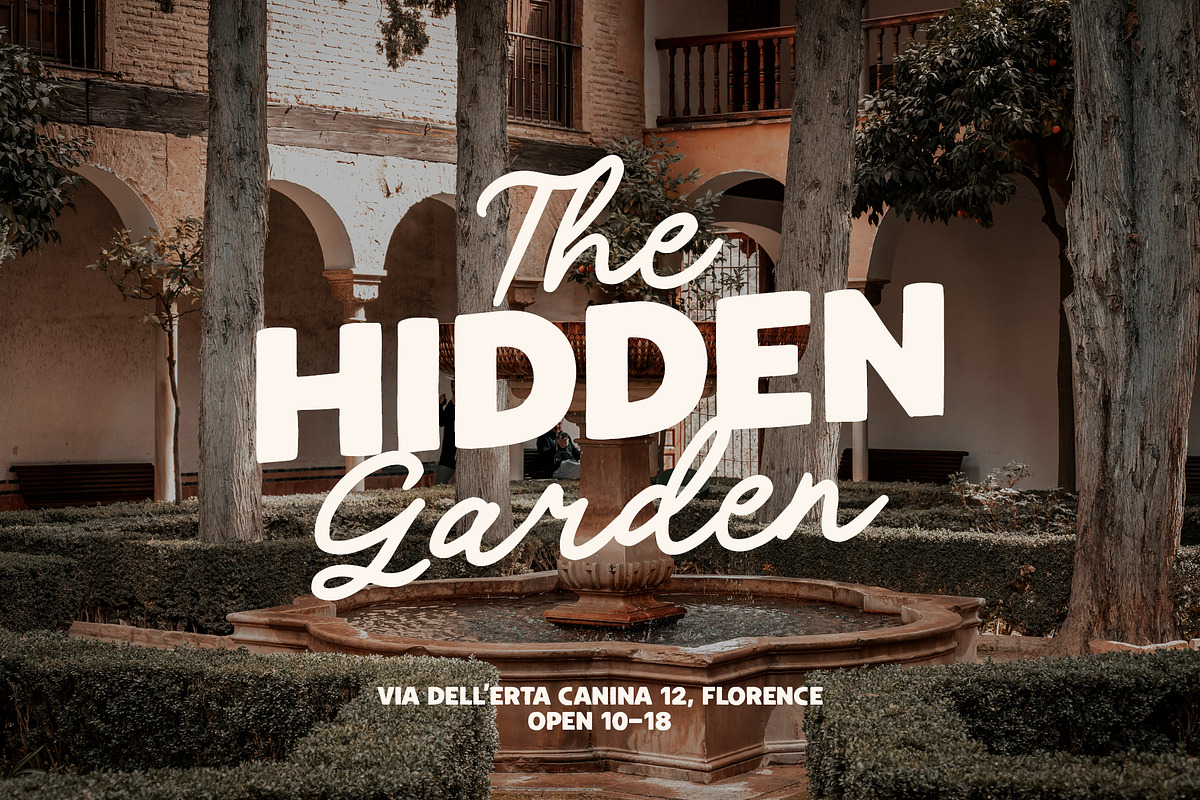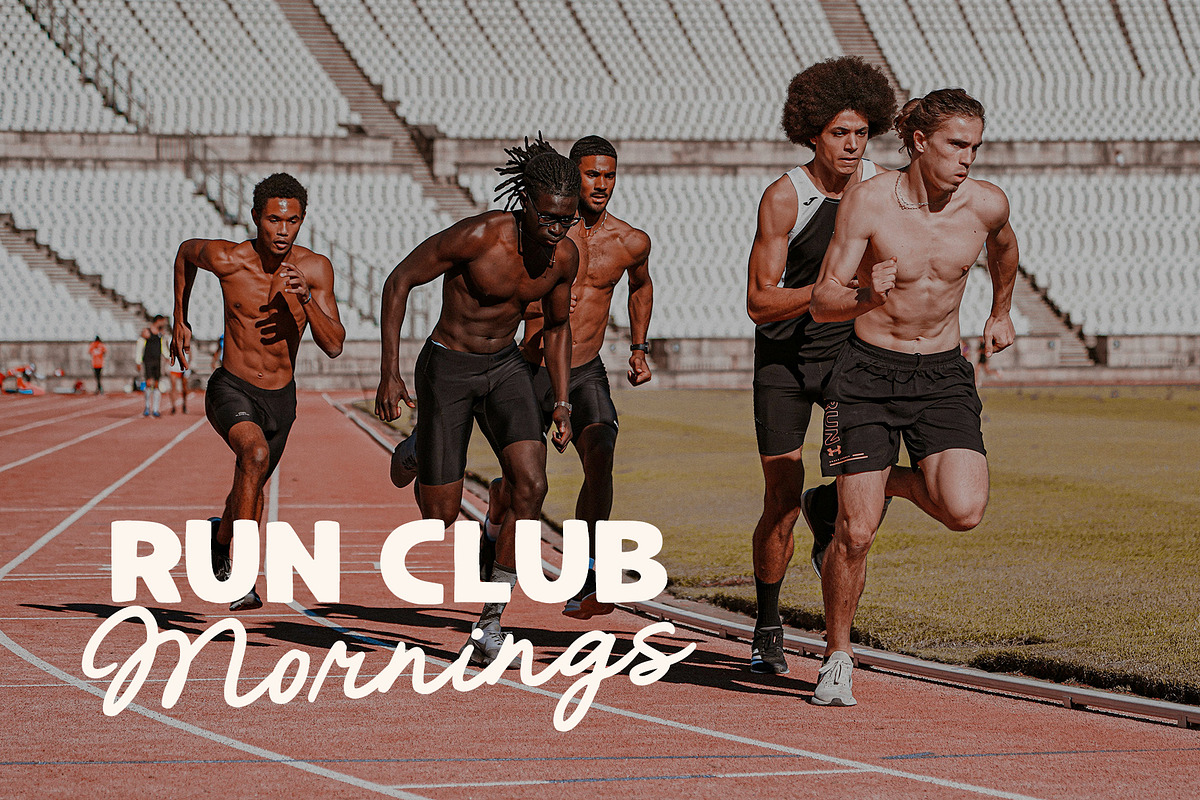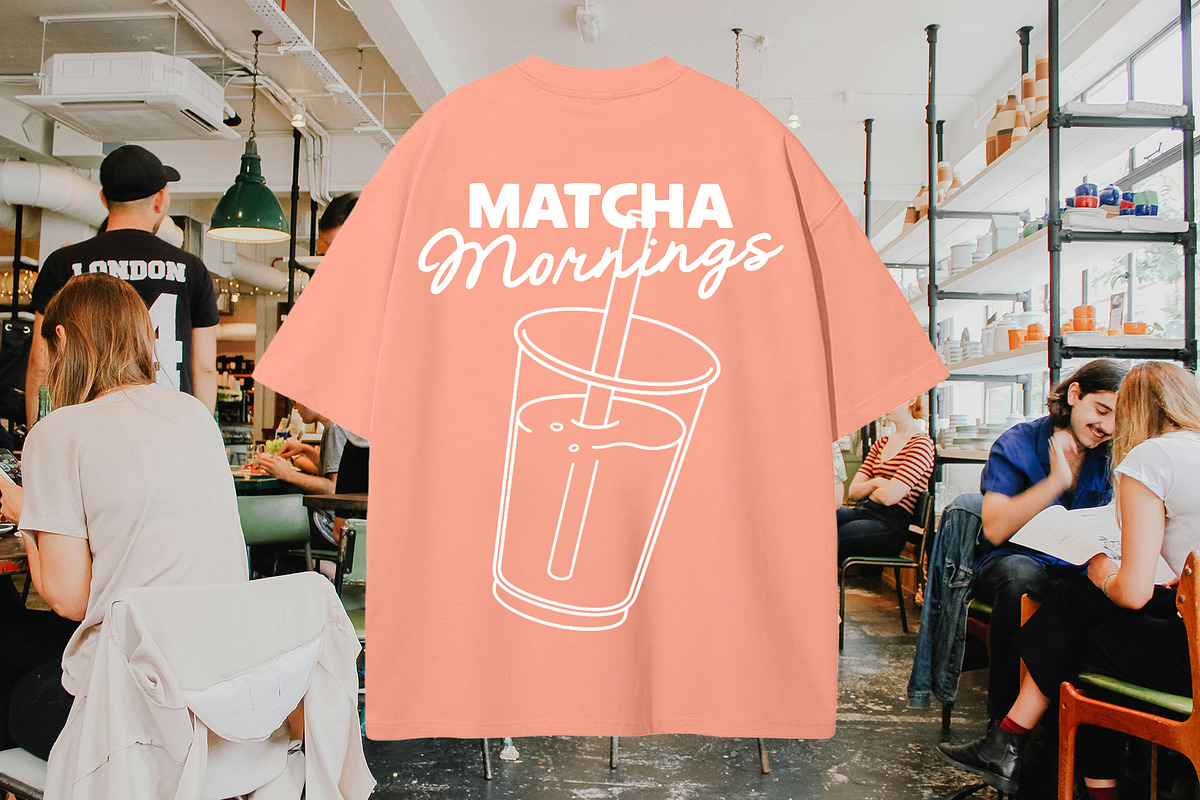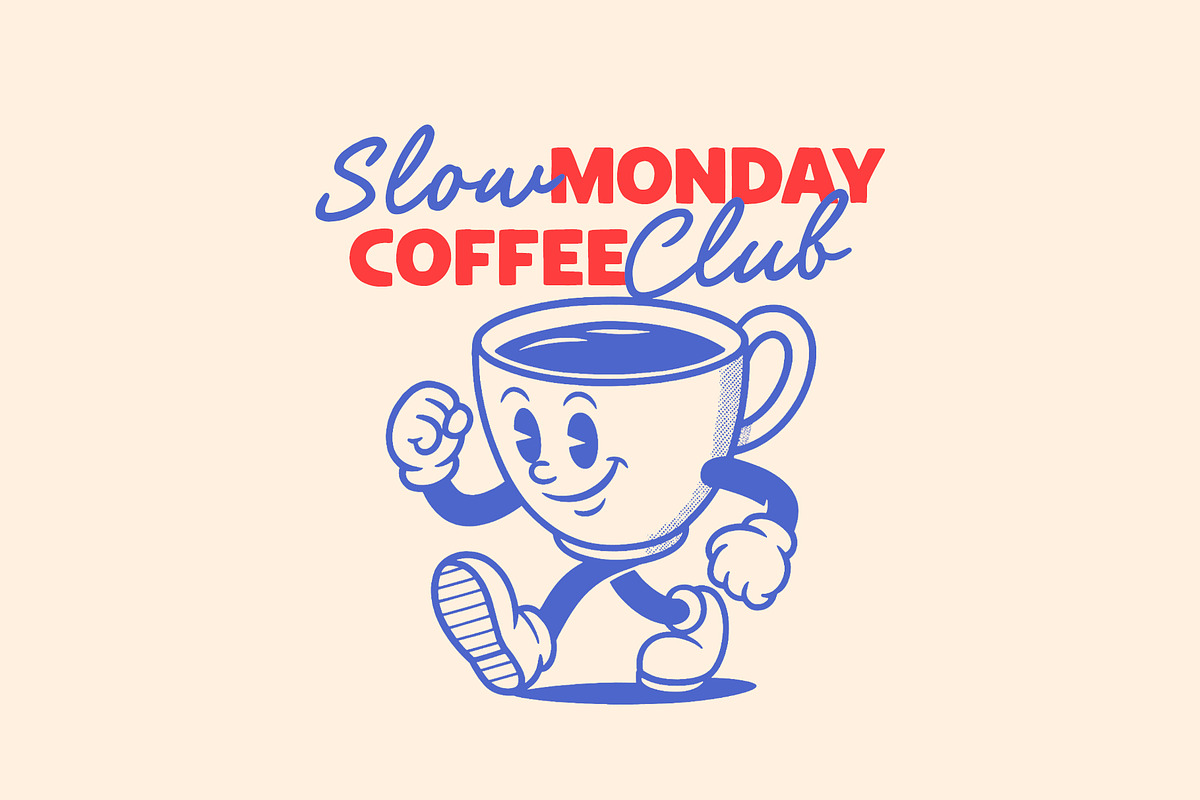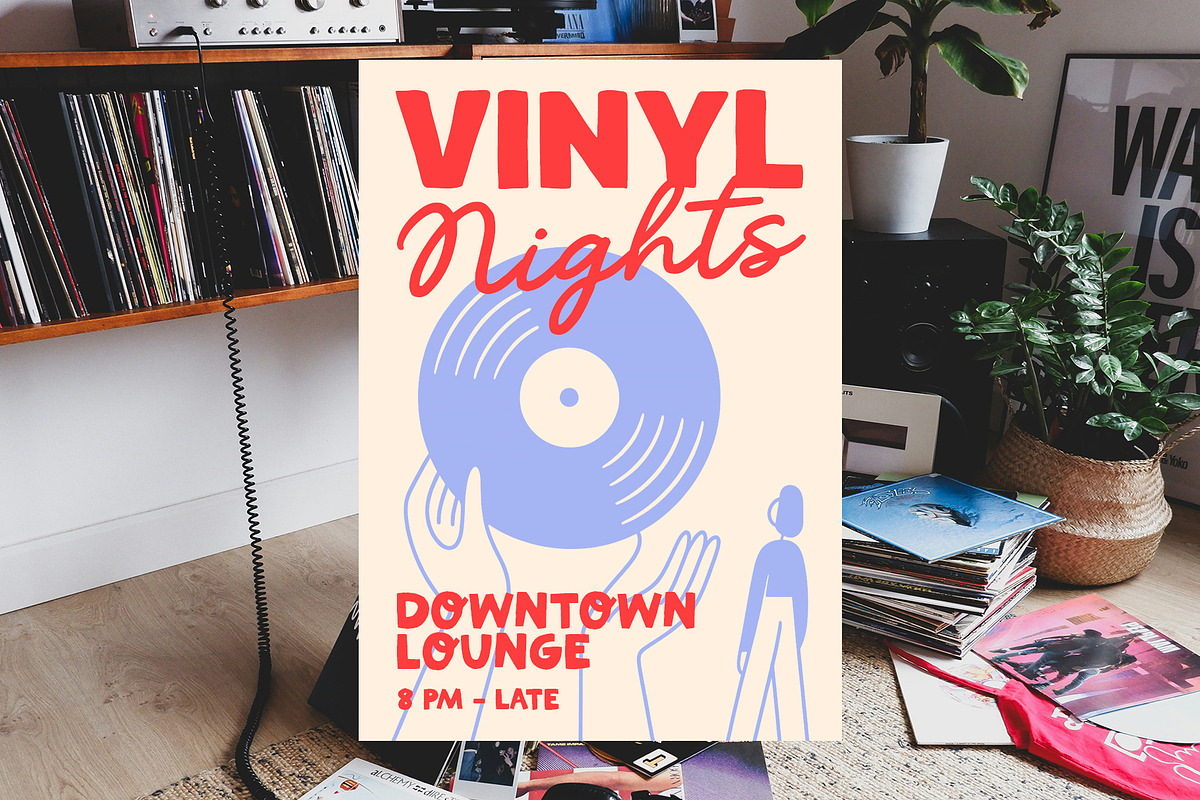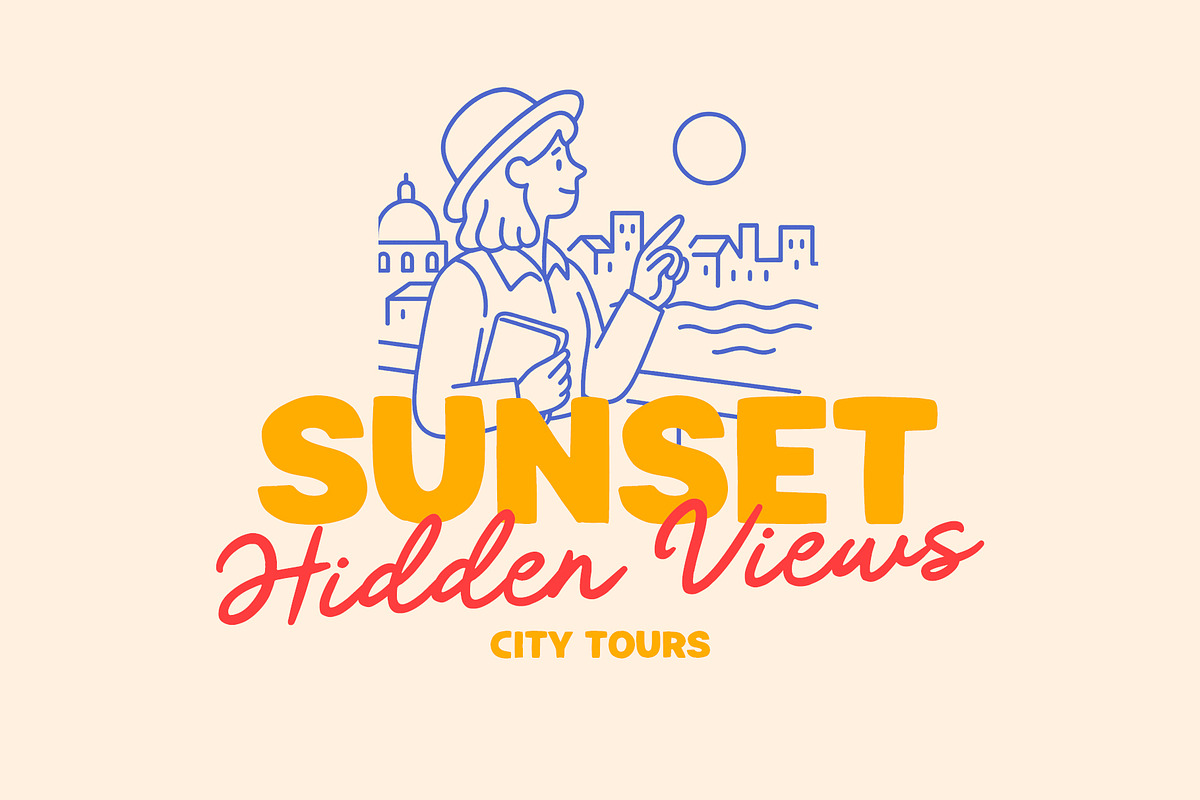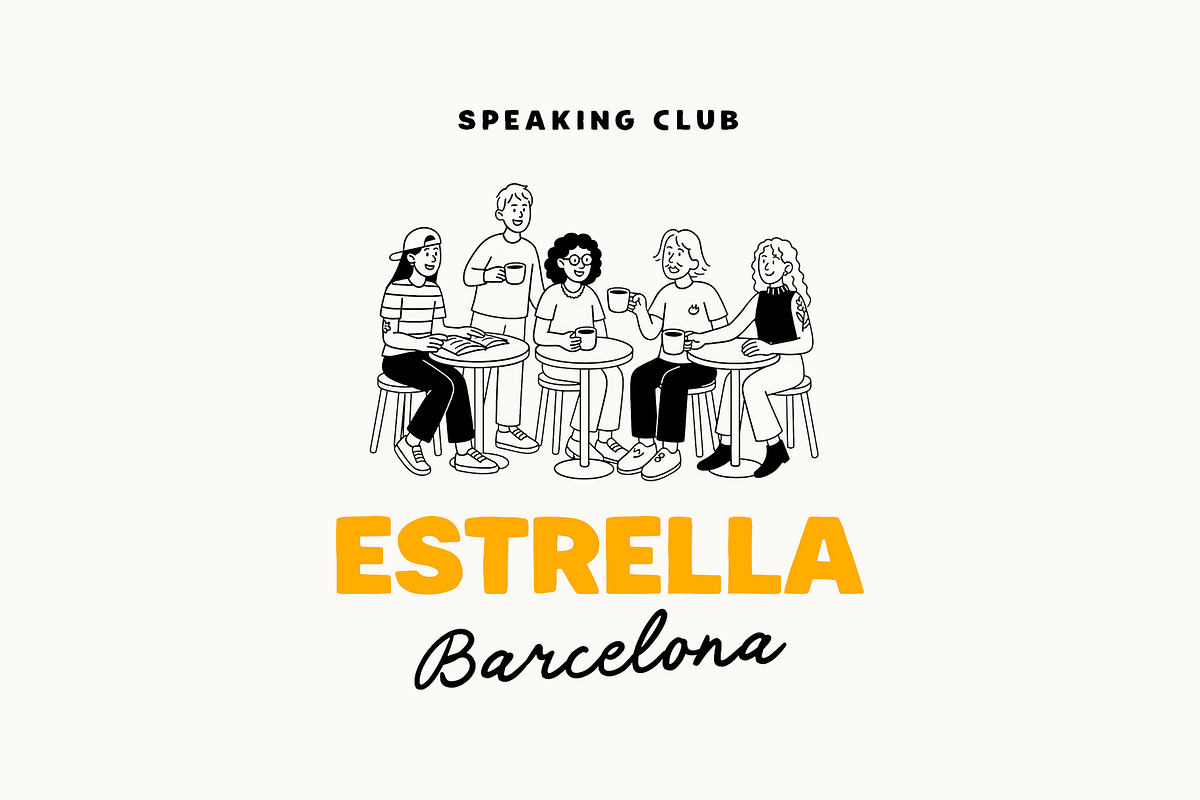
Maison du Soleil DUO
Maison du Soleil is a handmade duo font featuring a playful script and a bold sans serif. Inspired by sunny cafés and summer vibes, it's perfect for logos, packaging, invitations, and branding projects that need a warm, personal touch.
- Script font
- Sans serif font